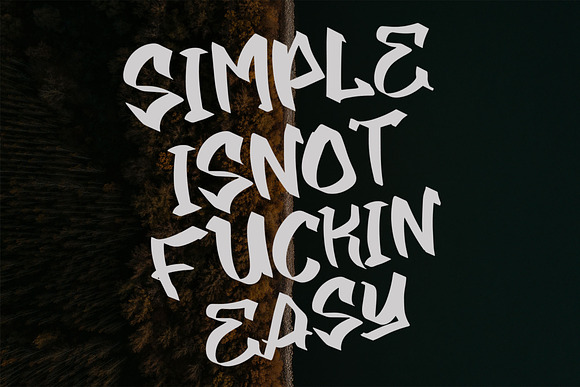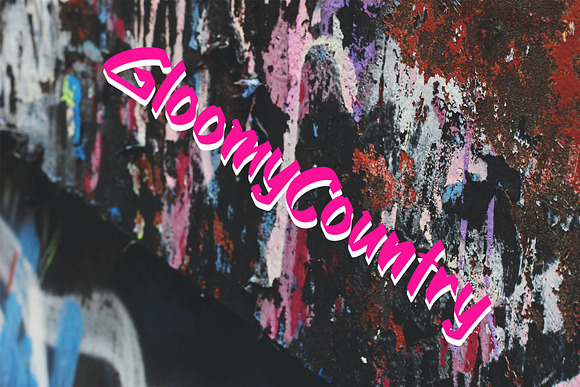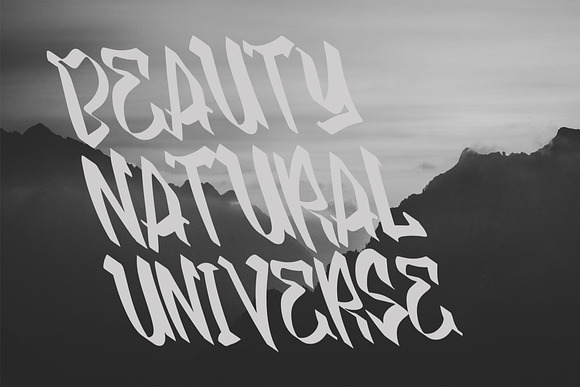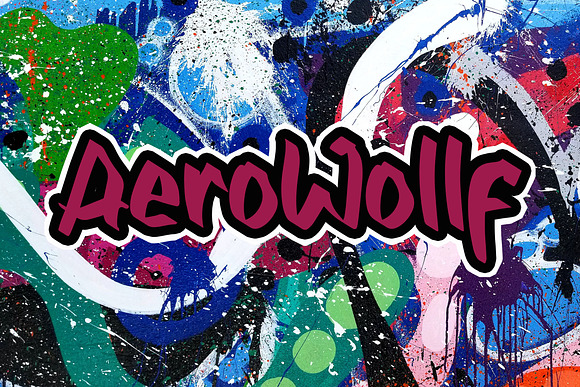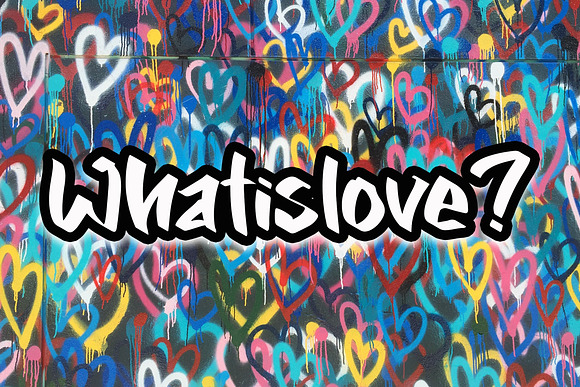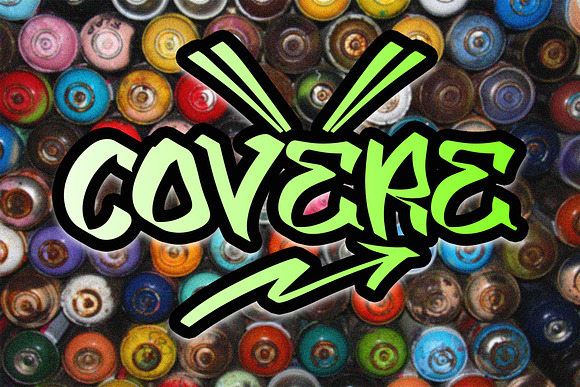
COVERE Gaffiti Font
COVERE - Bold Handbrush Graffiti Font Discover COVERE, a dynamic graffiti font with a bold handbrush style that stands out with its uniquely crafted characters. This font is perfect for adding a creative and edgy touch to your designs, making your graphics more eye-catching and impactful. Whether you're working on street art-inspired projects, posters, or branding, COVERE will elevate the visual appeal of your work. We appreciate your support in downloading this font, and we’re committed to keeping it updated regularly to meet your creative needs.